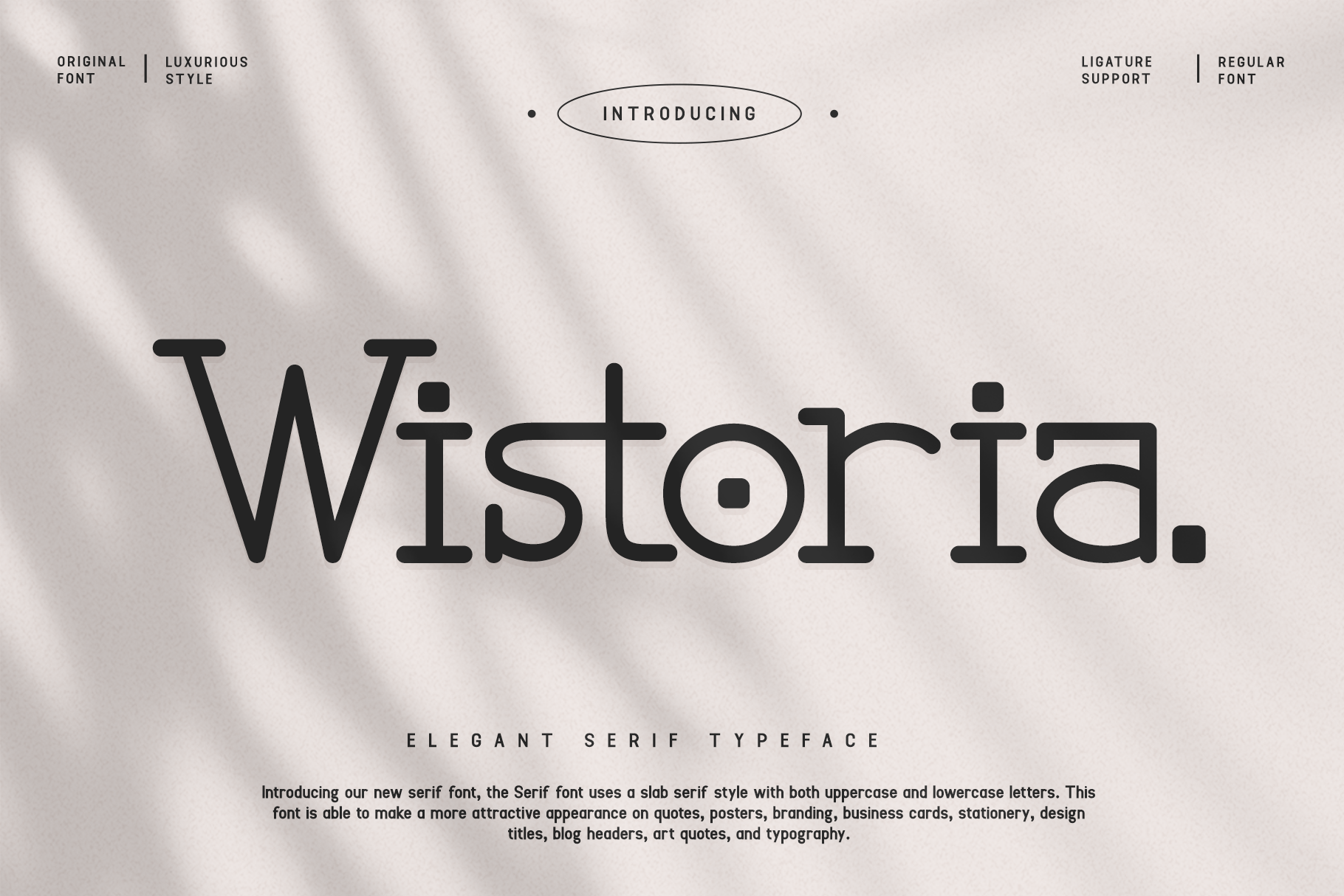
Wistoria - A Elegant Serif Typeface
Wistoria is a graceful and refined serif typeface designed to add sophistication to your design projects. With its delicate serifs and balanced letterforms, Wistoria is perfect for editorial layouts, luxury branding, fashion magazines, and upscale product packaging. This font embodies timeless elegance, making it an ideal choice for projects that require a touch of class and sophistication.
Crafted with meticulous attention to detail, Wistoria combines traditional serif elements with modern aesthetics, resulting in a typeface that is both stylish and readable. Its elegant curves and subtle contrasts ensure clarity and visual appeal, whether used in headlines or body text. The font's extensive character set supports multiple languages, allowing for seamless integration into global design projects.
Elevate your design projects with Wistoria, a font that exudes elegance and refinement. Its distinctive style and versatility make it a valuable asset for designers aiming to create impactful and memorable work. Make a statement with Wistoria and experience the beauty of classic serif typography.